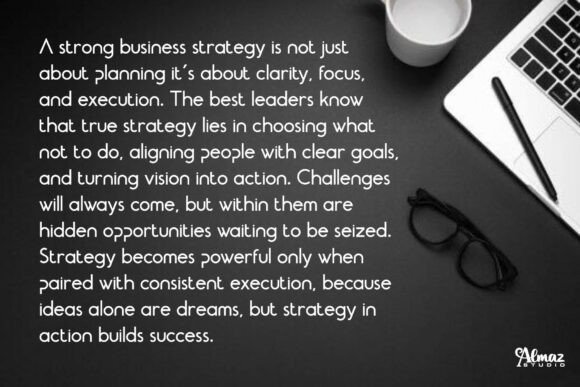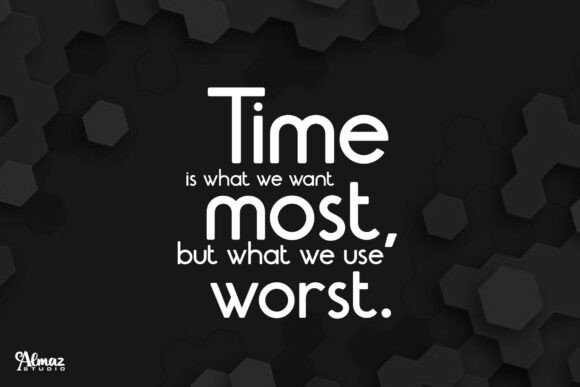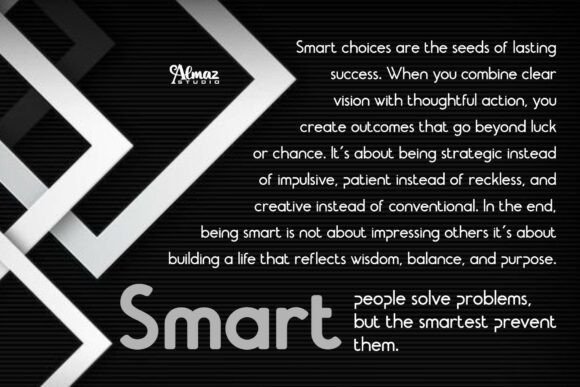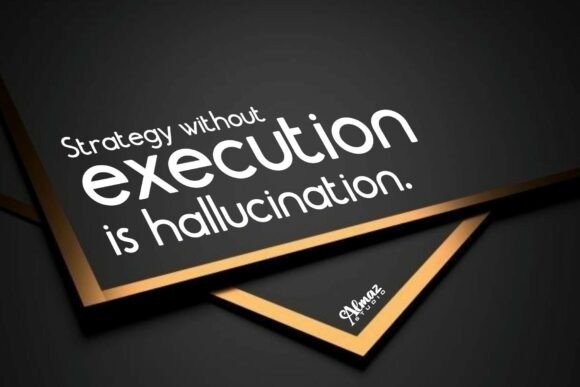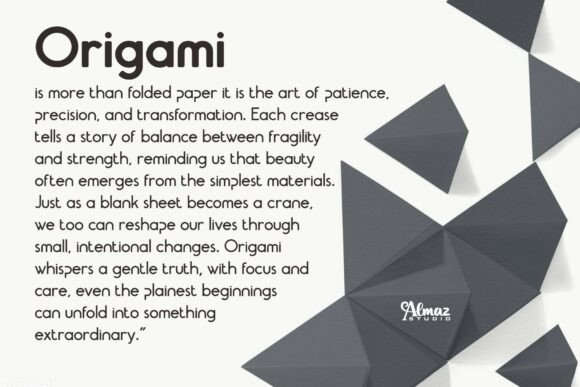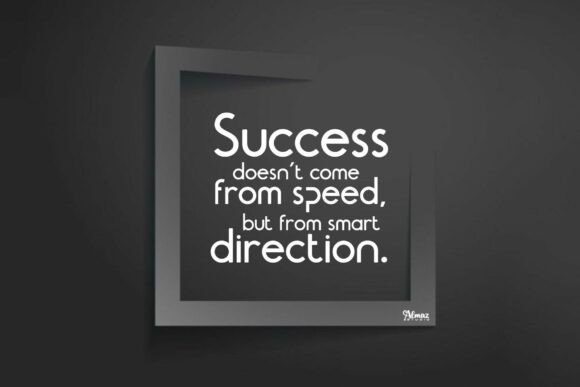
Ginzha Font: The Ultimate Modern Sans Serif Display Font for the Digital Age
In the world of typography, fonts play a crucial role in conveying the tone and personality of a brand. With the rise of digital platforms, the demand for modern and sleek fonts has increased significantly. This is where Ginzha Font comes into play, a futuristic sans-serif display font that redefines the classic sans-serif with a geometric twist. In this article, we’ll explore the features, benefits, and uses of Ginzha Font, making it a must-read for designers and crafters.
What is Ginzha Font?
Ginzha Font is a modern sans-serif display font characterized by sharp angles and clean, minimalist lines. Its unique design makes it perfect for the digital age, where typography plays a vital role in capturing the audience’s attention. The font’s geometric twist gives it a tech-forward look, making it an ideal choice for tech startup branding, gaming interfaces, sci-fi movie titles, and sleek architectural layouts.
Key Features of Ginzha Font
- Unique Cut in the “A”: The distinctive cut in the “A” gives Ginzha Font its signature tech-forward look, setting it apart from other sans-serif fonts.
- Sharp Angles and Clean Lines: The font’s geometric design features sharp angles and clean lines, making it perfect for digital platforms.
- Modern and Sleek: Ginzha Font is designed to be polished, professional, and ahead of its time, making it perfect for brands looking for a modern look.
Benefits of Using Ginzha Font
Using Ginzha Font offers several benefits for designers and crafters. Some of the key benefits include:
- Versatility: Ginzha Font is perfect for a wide range of applications, from tech startup branding to gaming interfaces and sci-fi movie titles.
- Readability: The font’s clean lines and sharp angles make it highly readable, even at small sizes.
- Uniqueness: Ginzha Font’s distinctive design sets it apart from other sans-serif fonts, making it a great choice for brands looking to stand out.
Use Cases for Ginzha Font
Ginzha Font is perfect for a variety of applications, including:
- Tech Startup Branding: The font’s tech-forward look makes it perfect for tech startup branding, conveying innovation and modernity.
- Gaming Interfaces: Ginzha Font’s sleek design makes it ideal for gaming interfaces, adding a touch of sophistication and modernity.
- Sci-Fi Movie Titles: The font’s futuristic look makes it perfect for sci-fi movie titles, adding a touch of otherworldliness and excitement.
- Sleek Architectural Layouts: Ginzha Font’s clean lines and sharp angles make it perfect for sleek architectural layouts, conveying modernity and sophistication.
In conclusion, Ginzha Font is a modern sans-serif display font that redefines the classic sans-serif with a futuristic, geometric twist. Its unique design, versatility, and readability make it a great choice for designers and crafters looking for a polished, professional, and ahead-of-its-time look. Whether you’re working on tech startup branding, gaming interfaces, sci-fi movie titles, or sleek architectural layouts, Ginzha Font is the ultimate choice.